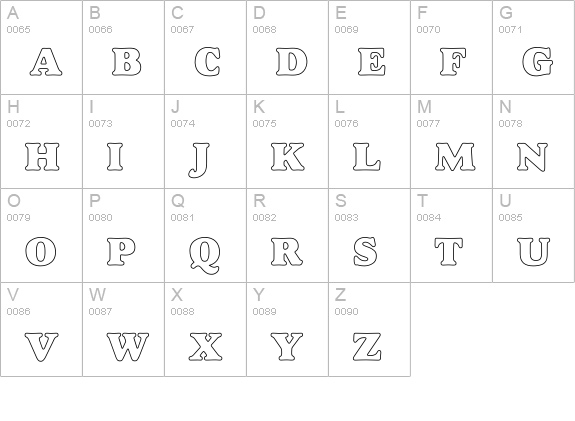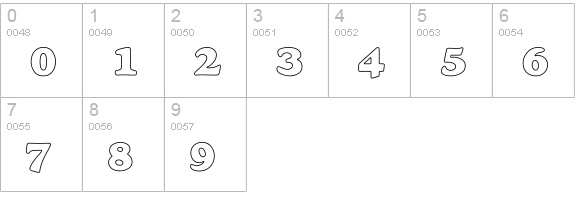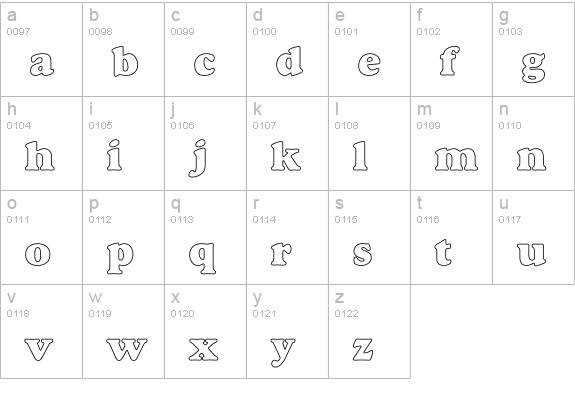
Alexuss Heavy Hollow is a heavy, high-impact variant in the Alexuss typeface family \xE2\x80\x94 well suited to high-impact headlines, posters, and display advertising.
Alexuss Heavy Hollow font is a bold and eye-catching typeface that exudes strength and modernity. With its unique hollow style, this font is perfect for making a statement in headlines, logos, and branding materials. Its thick lines and intricate detailing give it a powerful presence on any design project. What makes Alexuss Heavy Hollow font even more appealing is that it is available for free download at FontsMarket.com. This means that you can easily access this dynamic font for your personal and commercial projects without any cost. Don't miss out on the opportunity to add this striking typeface to your font collection and elevate your designs to the next level.